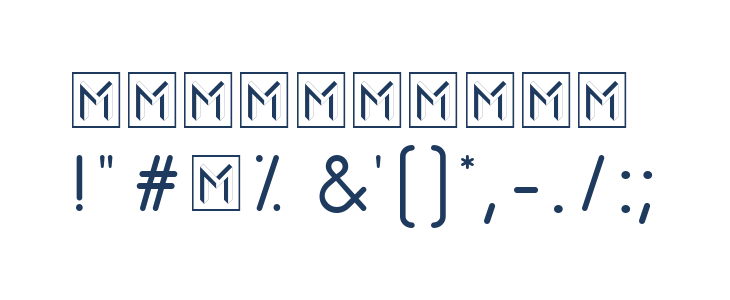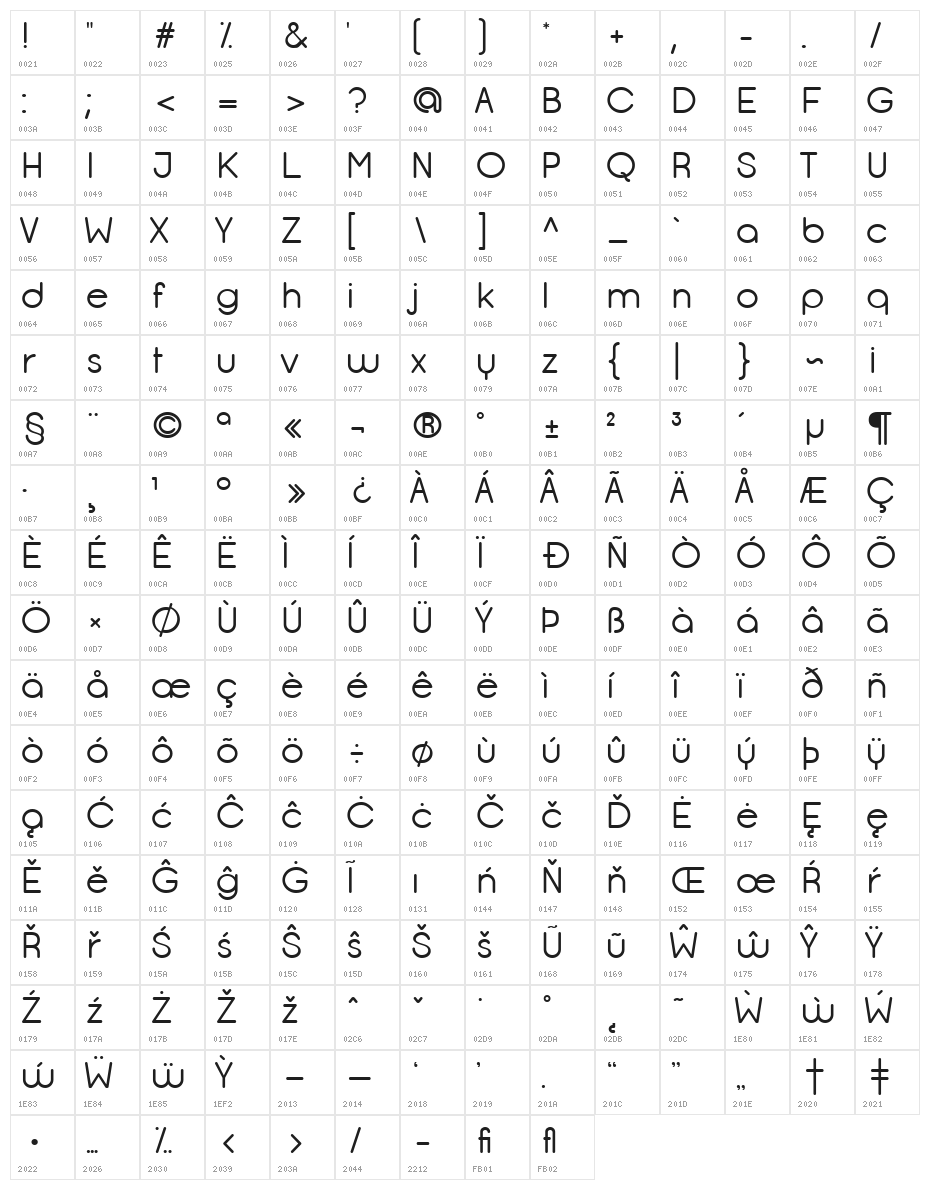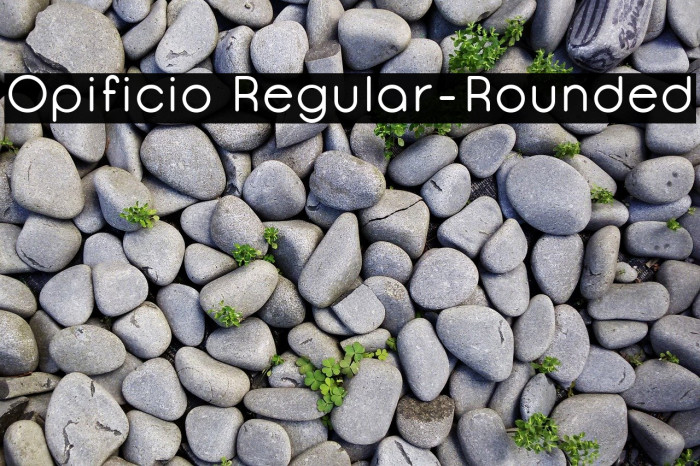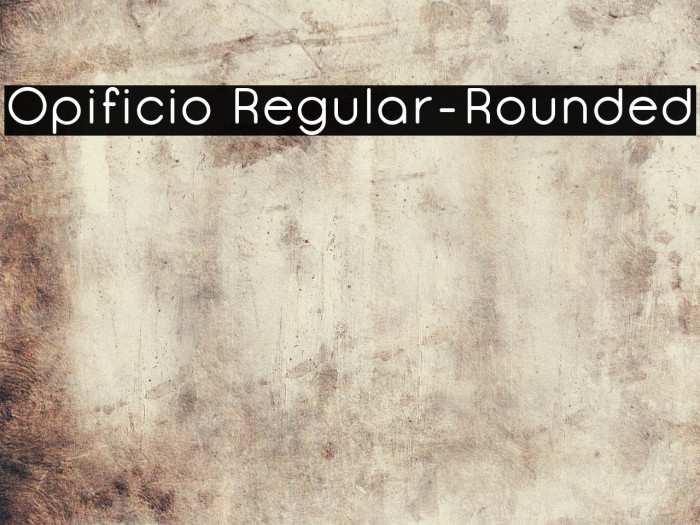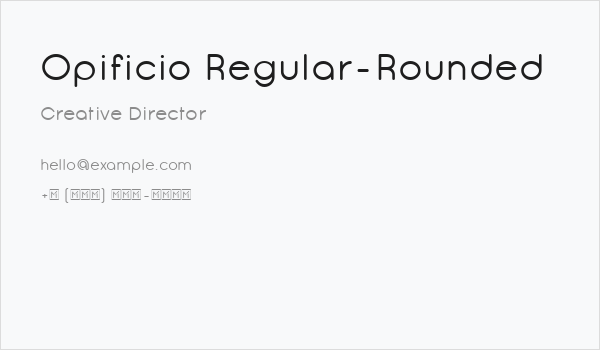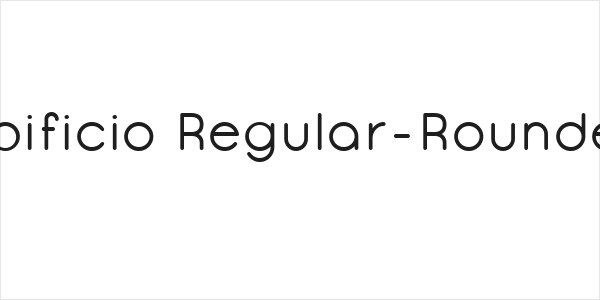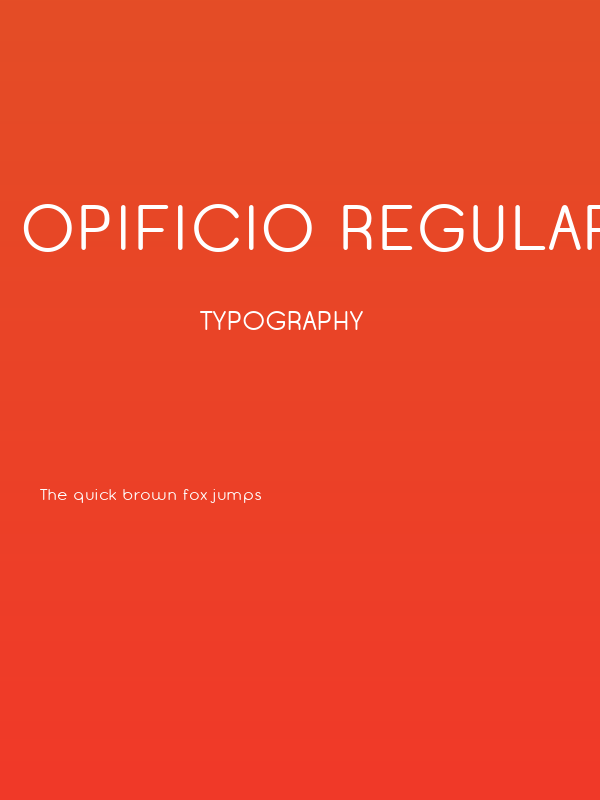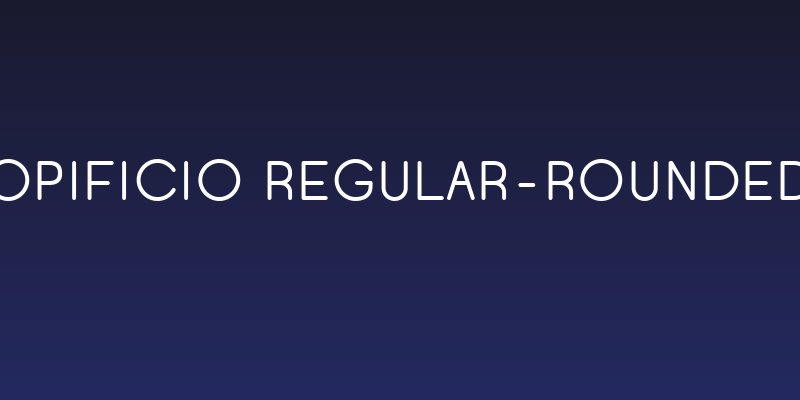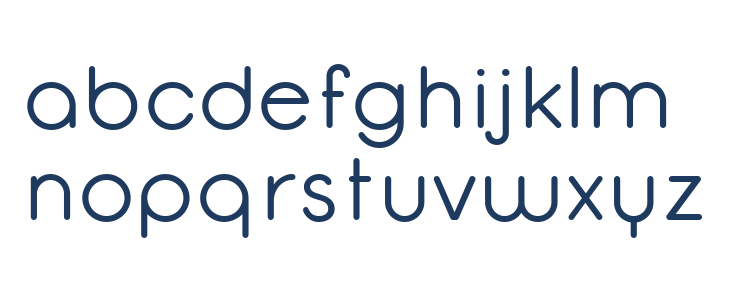
Opificio Regular-Rounded Font
Opificio Regular-Rounded Description
This font features a clean, rounded sans-serif style that exudes a modern and approachable aesthetic. The characters are evenly spaced with a consistent stroke width, giving it a balanced and harmonious appearance. The rounded edges soften the overall look, making it ideal for projects that require a friendly and inviting tone. The uppercase and lowercase letters maintain a uniform height, contributing to its readability and versatility. The numerals and special characters are designed to match the overall style, ensuring a cohesive look across different text elements.